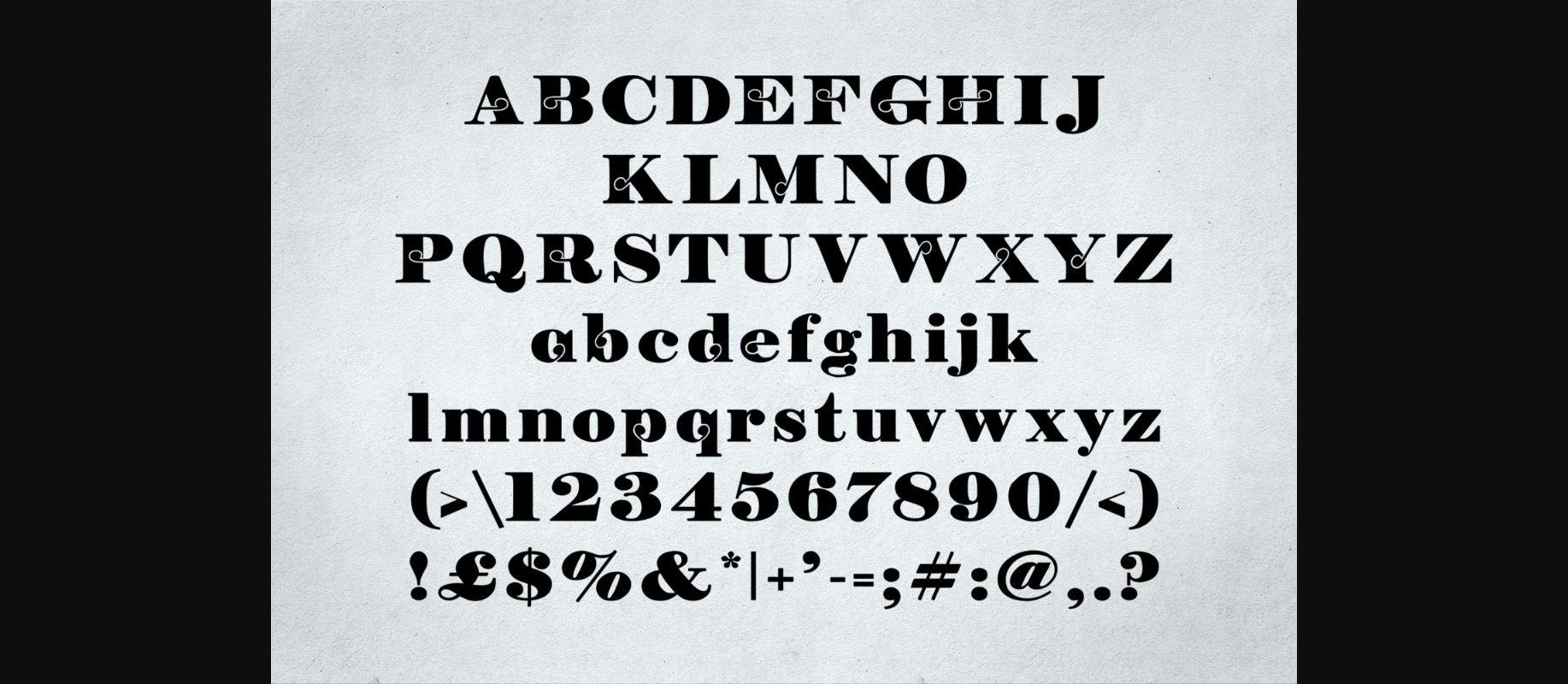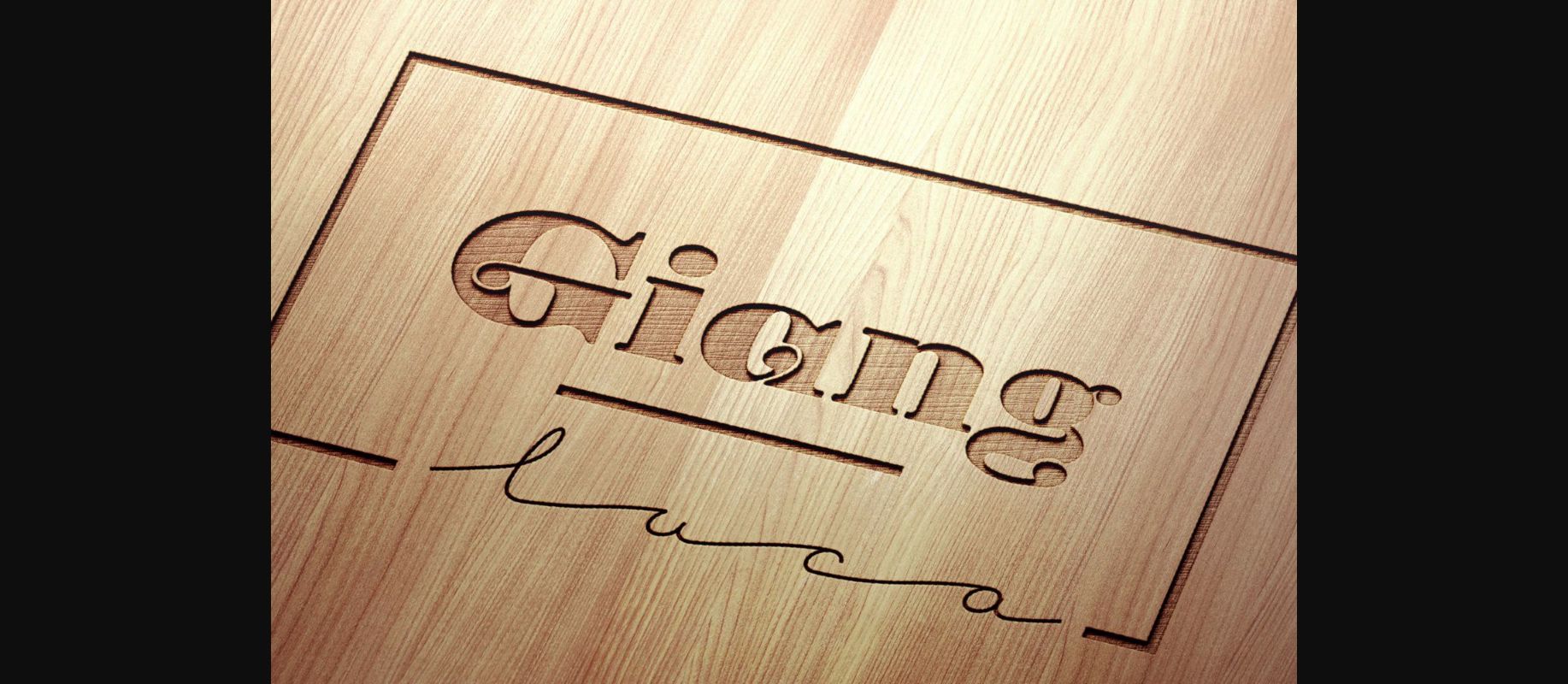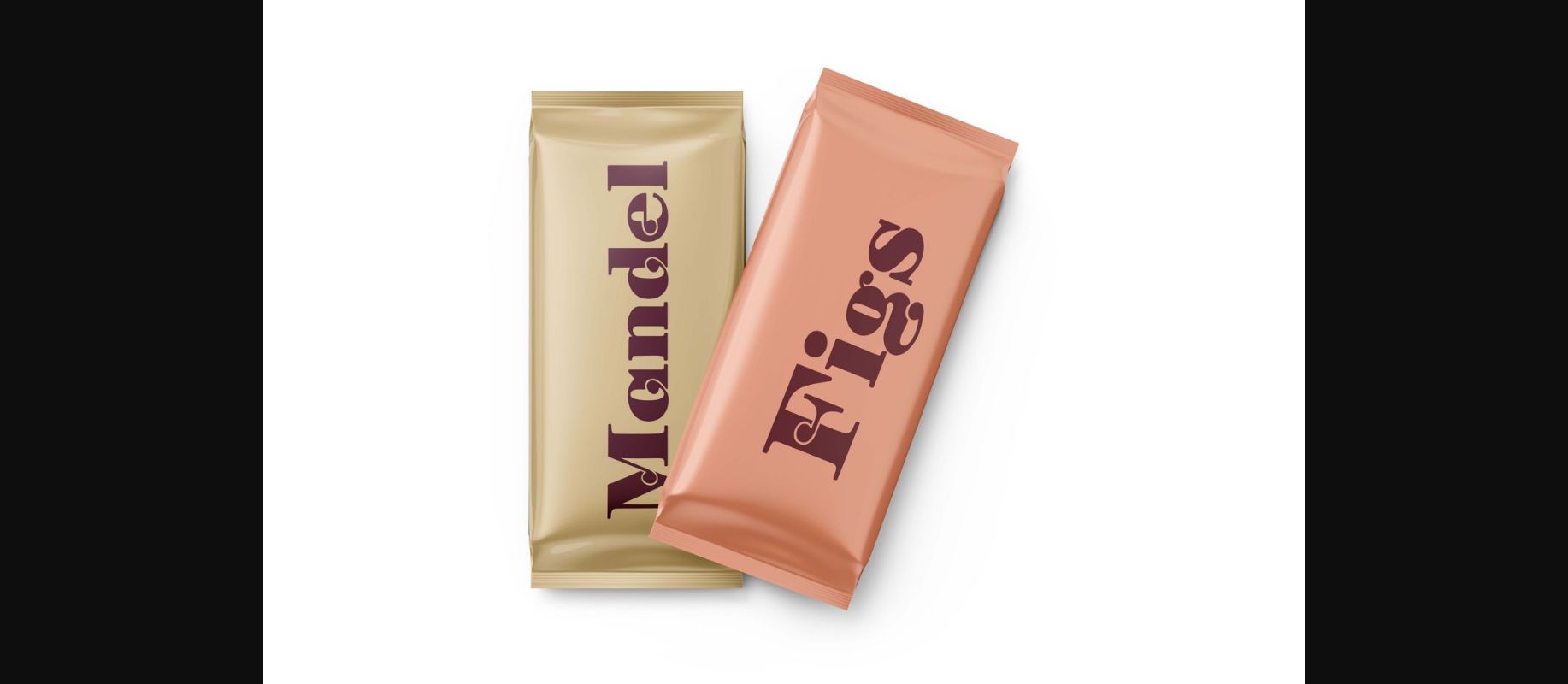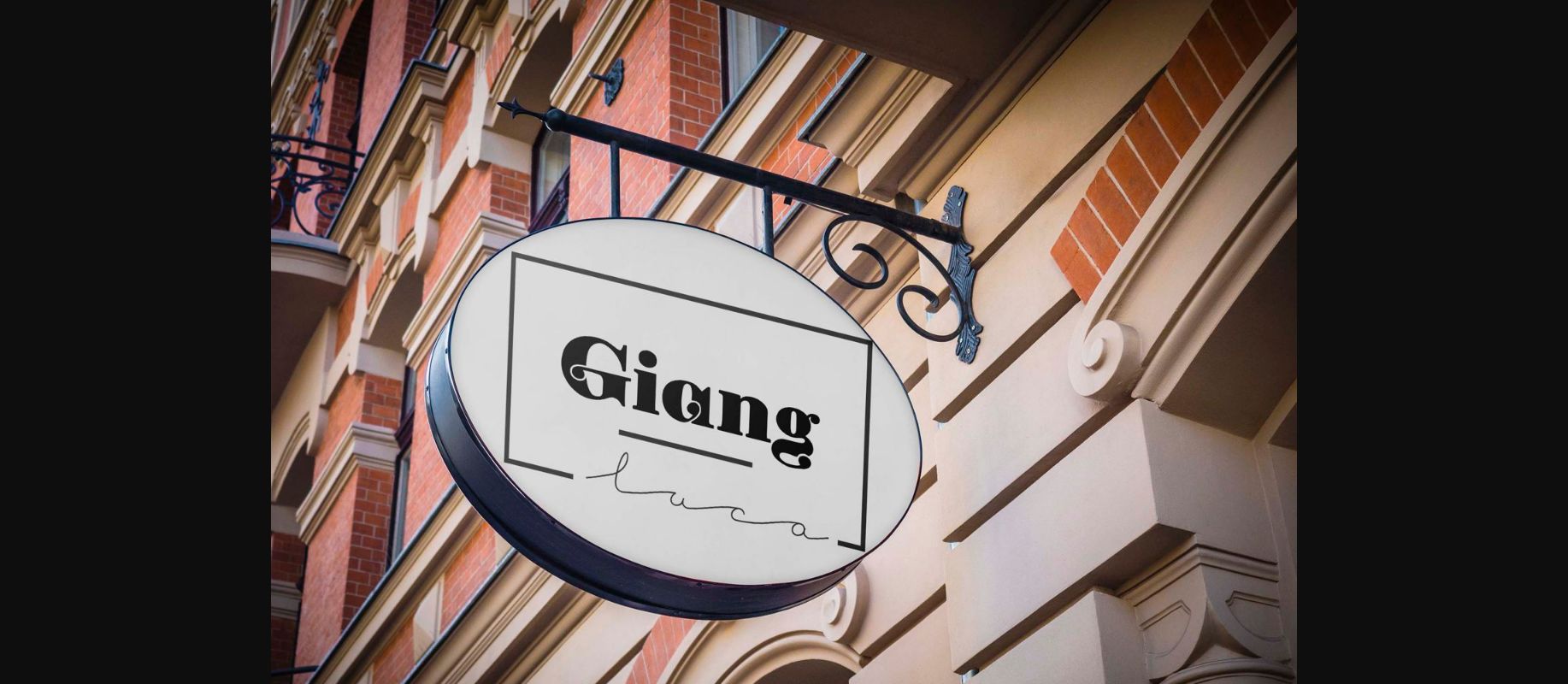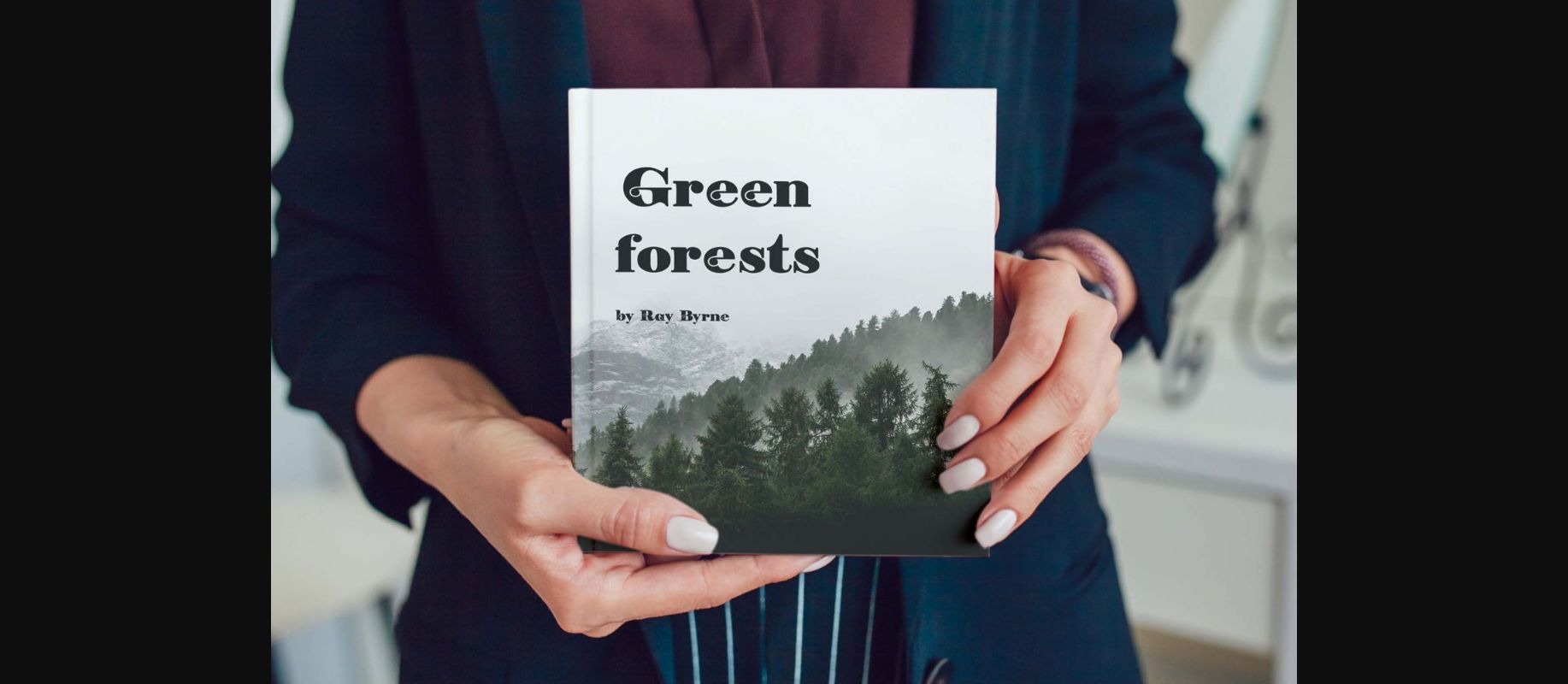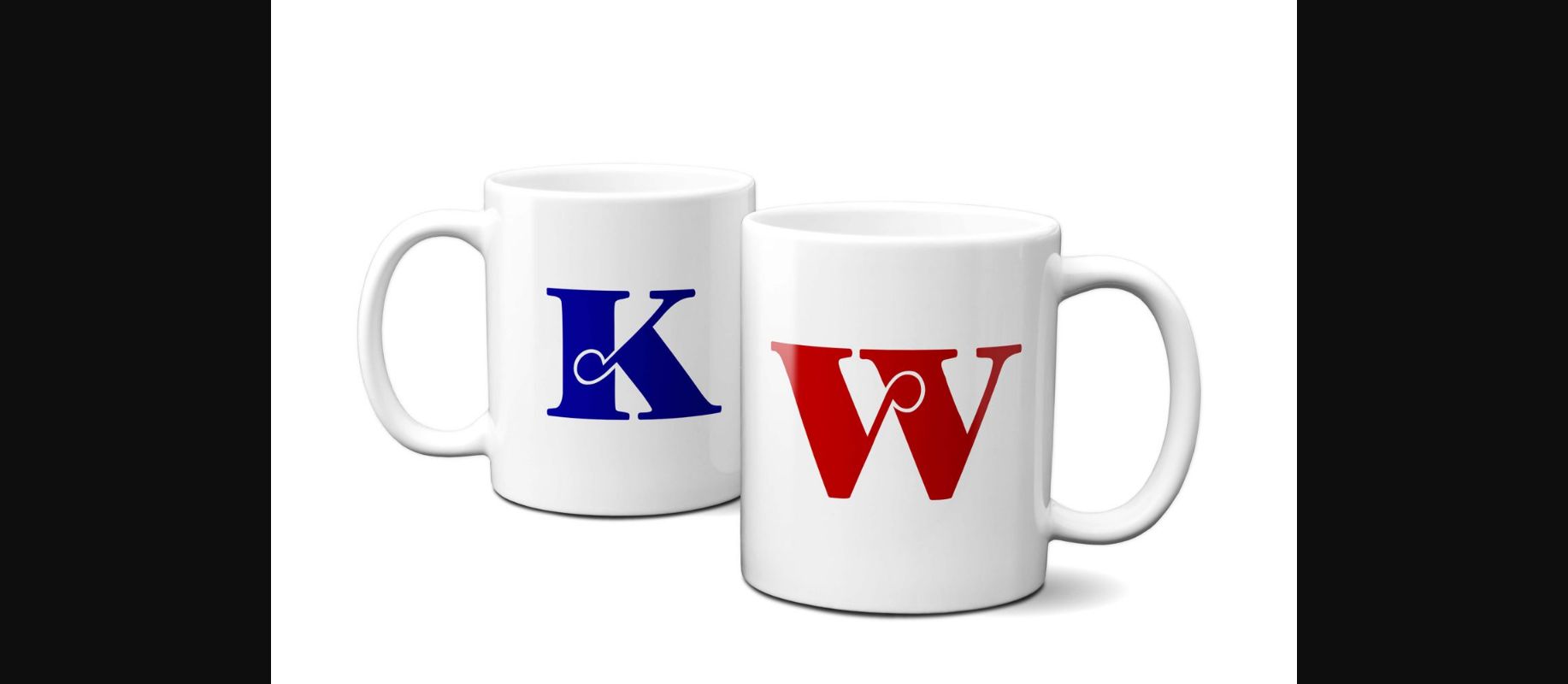
Feba Font
About Feba Font
Feba is a carefully crafted decorative font, suitable for a wide variety of designs. Get inspired by its experimental, yet familiar feel!